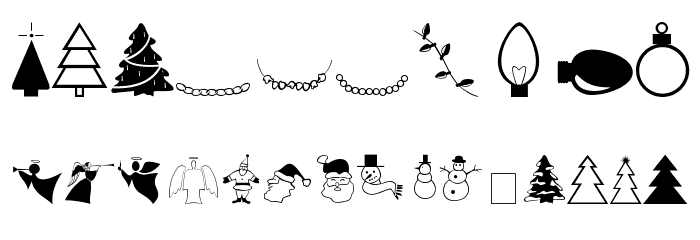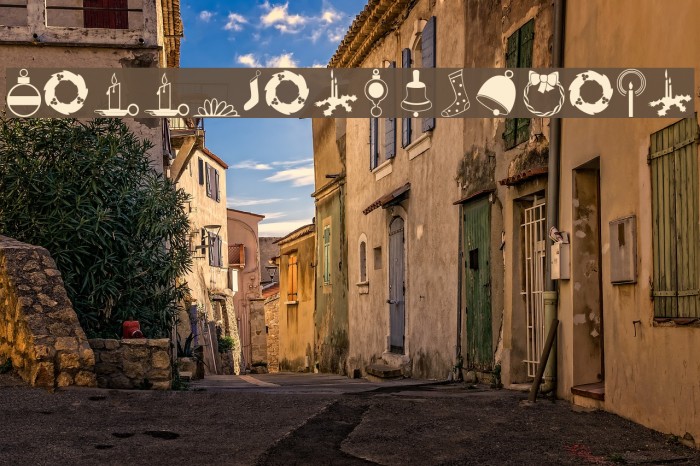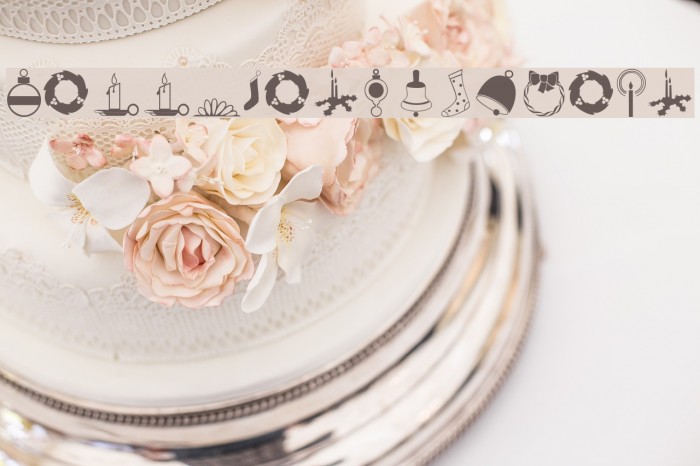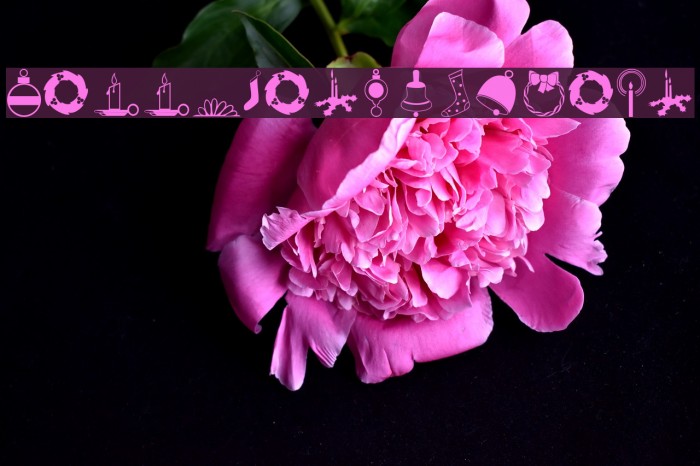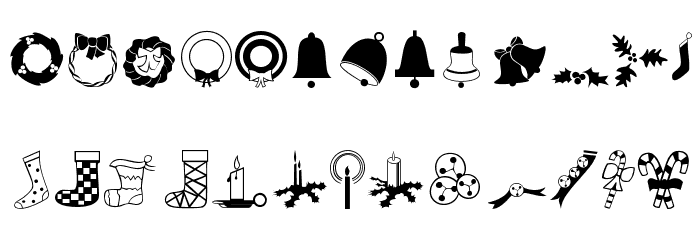
Carr Xmas Dingbats Font
Carr Xmas Dingbats Description
This collection features a festive array of Christmas-themed dingbats, perfect for adding a touch of holiday spirit to any project. The designs include classic symbols such as ornaments, gift boxes, bells, wreaths, stockings, candles, and Christmas trees. Each symbol is crafted with a playful and decorative style, capturing the essence of the holiday season. The icons are bold and clear, making them suitable for both digital and print media. The variety of designs allows for versatile use, from greeting cards to holiday decorations, ensuring that each project can have a unique and festive flair.
| Use Case | Logos, Headlines, Decorative Elements |
| Proposed Projects | Ideal for holiday greeting cards, festive invitations, seasonal decorations, and Christmas-themed digital content. |